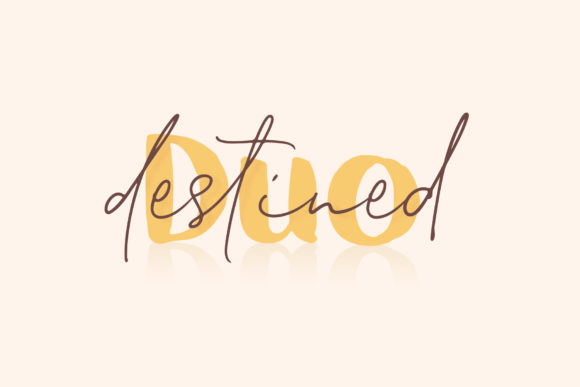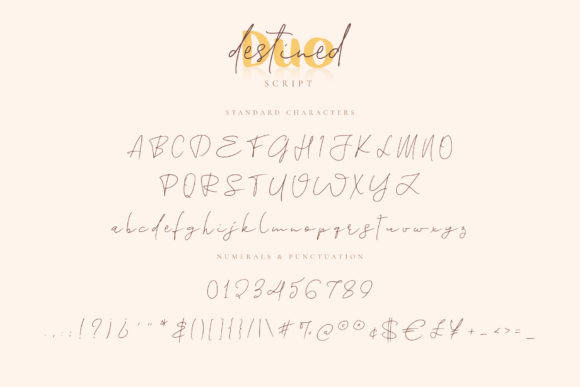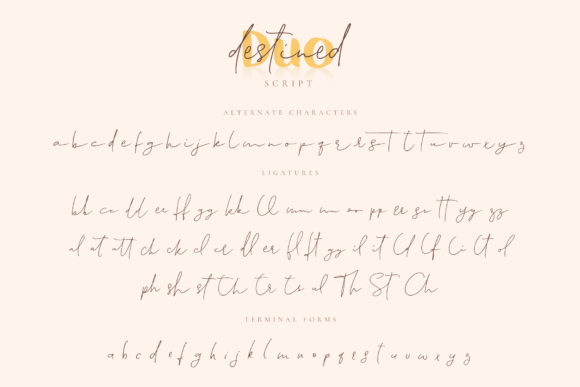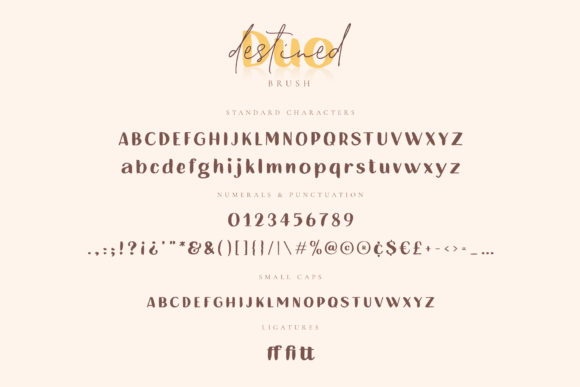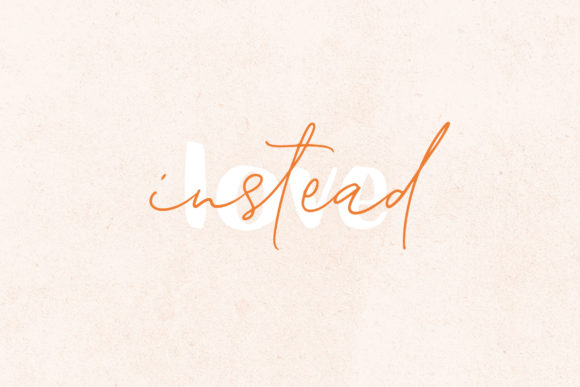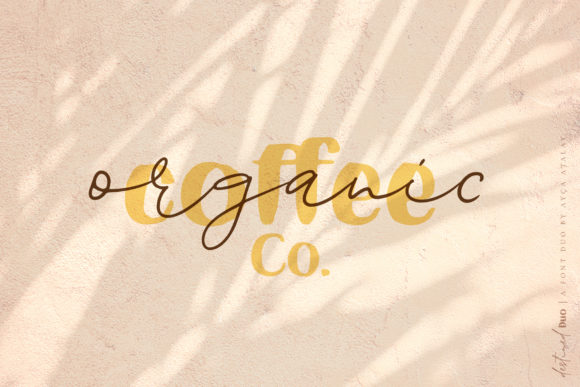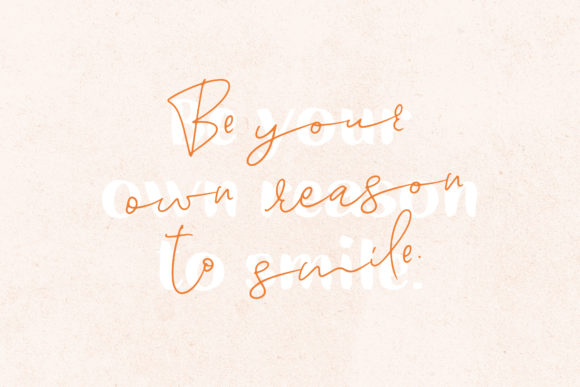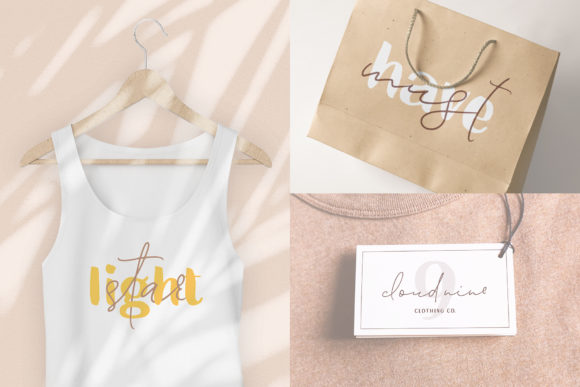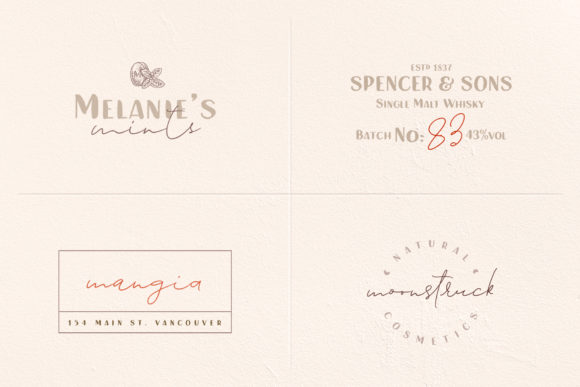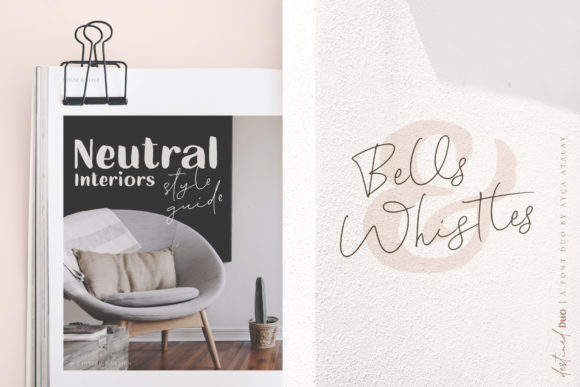
Destined Duo Font
About Destined Duo Font
Destined is a stunningly smart and cool font duo, bringing together an elegant sans serif and an authentic script font. Combine these two fonts to turn any design project into an artwork!